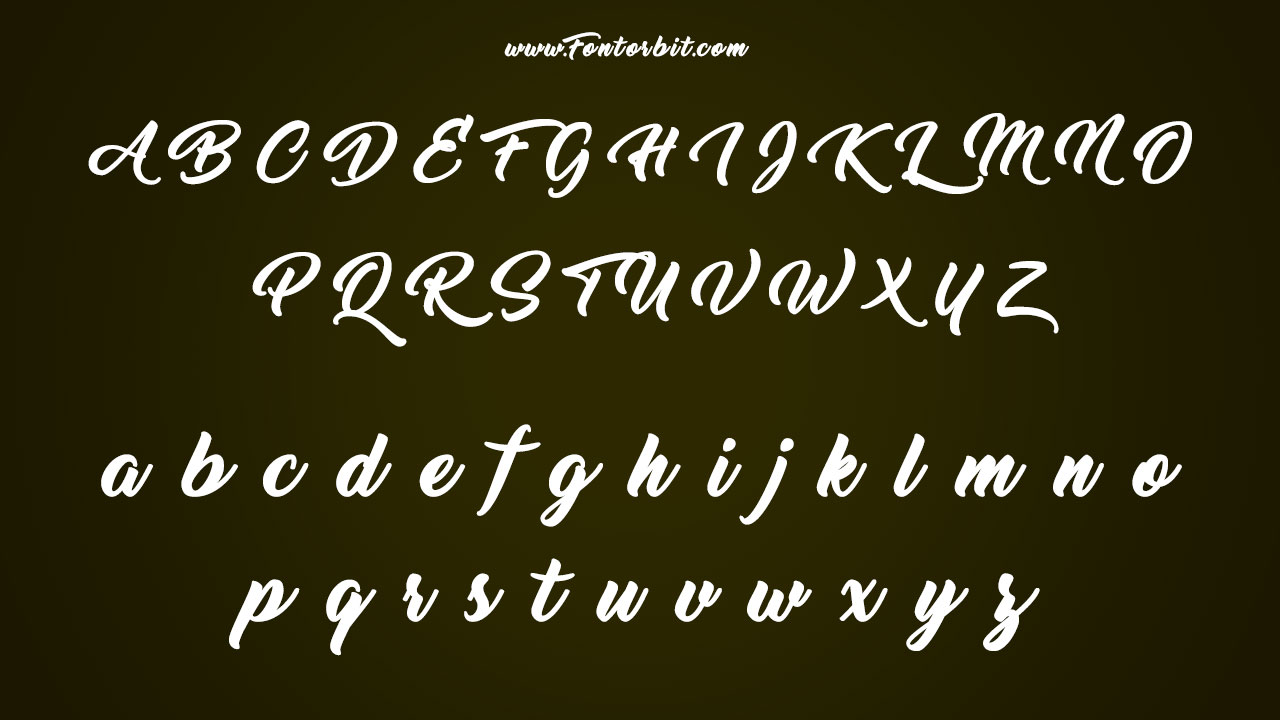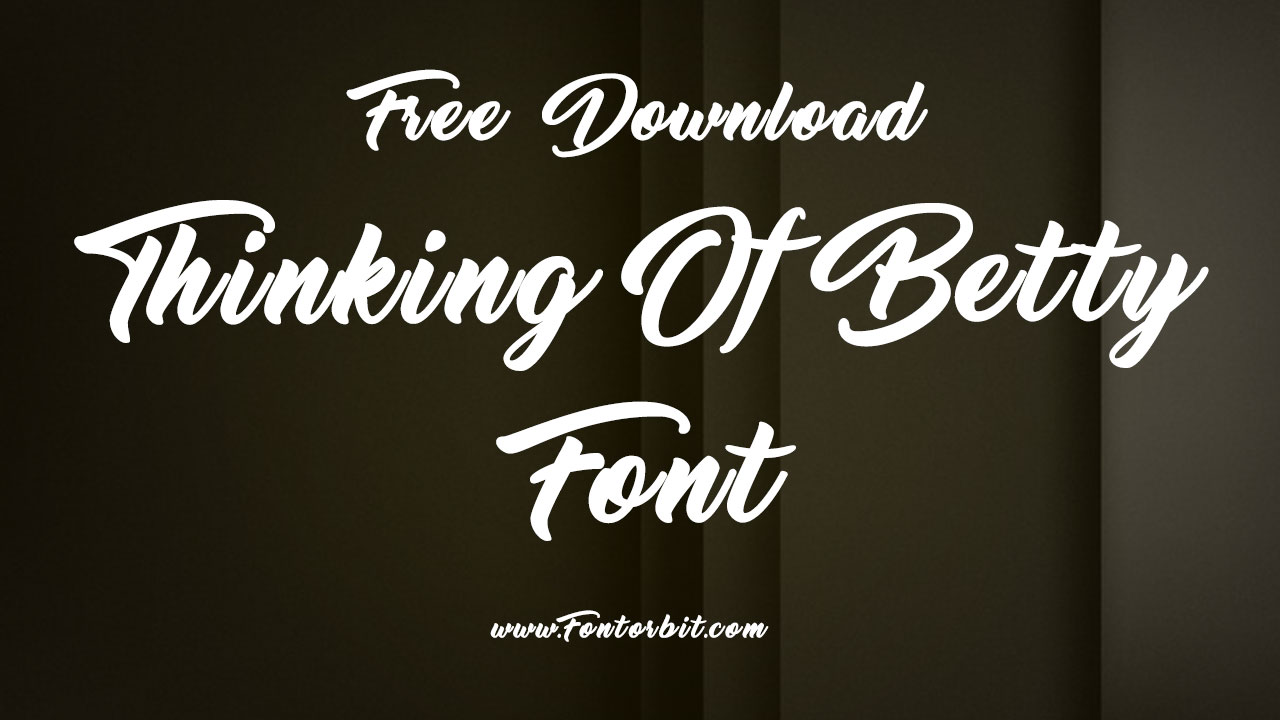
The Thinking of Betty font is a whimsical and stylish script typeface designed by StereoType. Released on various font platforms, it belongs to the script font family and is known for its elegant, flowing characters that add a touch of personality to any design.
Thinking Of Betty Family Includes
Thinking of Betty is a single-font family that features:
a. Thinking Of Betty Regular
| Style: | Brush |
The standard style of the font, offering a clean and flowing handwritten script. This singular style provides a versatile option for adding a personal and elegant touch to various design projects.
Notable Uses Of Thinking Of Betty
This font is perfect for:
- Making covers
- Advertising
- T-shirt designs
- Resume designs
- Cover designs
- Other typographic projects
“Thinking of Betty” is ideal for any project where a touch of elegance and personality is desired. It’s especially suited for creative and artistic endeavors such as:
- Wedding invitations and event flyers
- Logos and business cards
- Blog headers and social media graphics
Thinking of Betty brings a unique charm to your designs with its stylish script and personal flair. Whether for invitations, branding, or personal projects, this font adds a special touch of elegance. Explore similar fonts if you’re looking for variety, and have fun incorporating this delightful typeface into your creative work!
1.Does “Thinking Of Betty” Support Multiple Languages?
It primarily supports Latin characters.
3.Does “Thinking Of Betty” Have Uppercase And Lowercase Letters?
Yes, it includes both uppercase and lowercase characters.